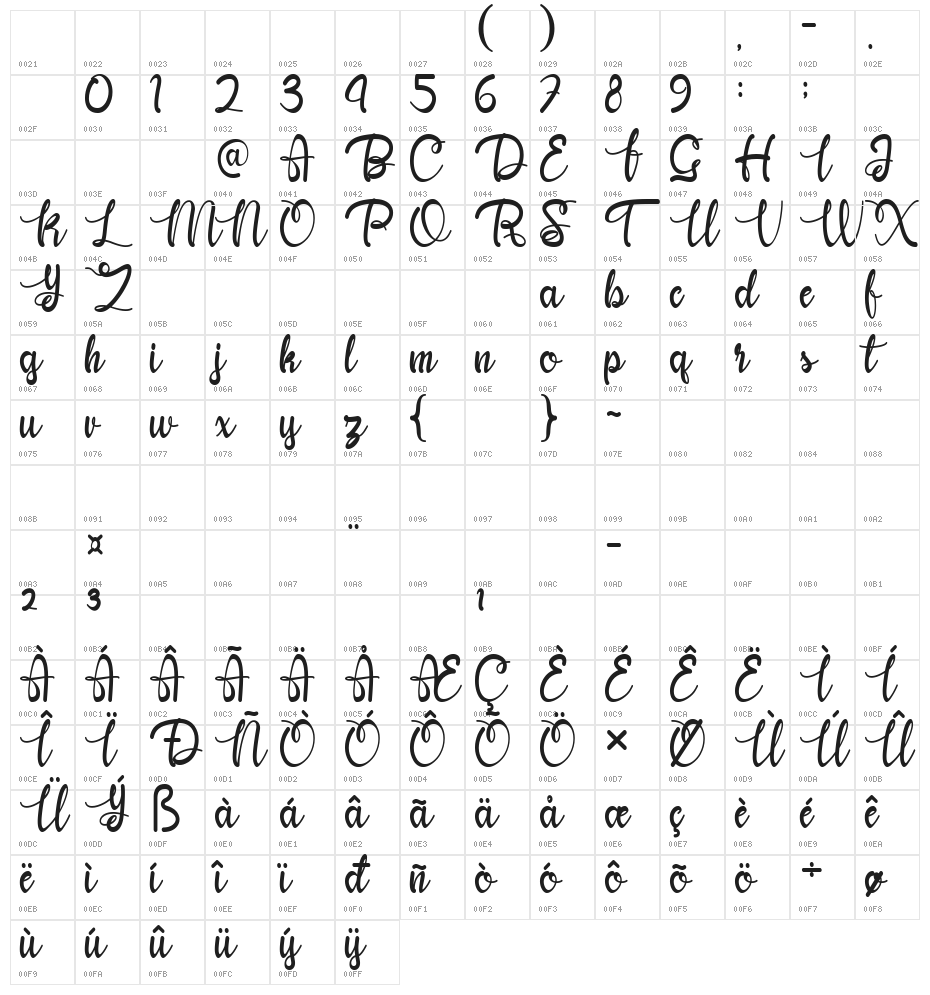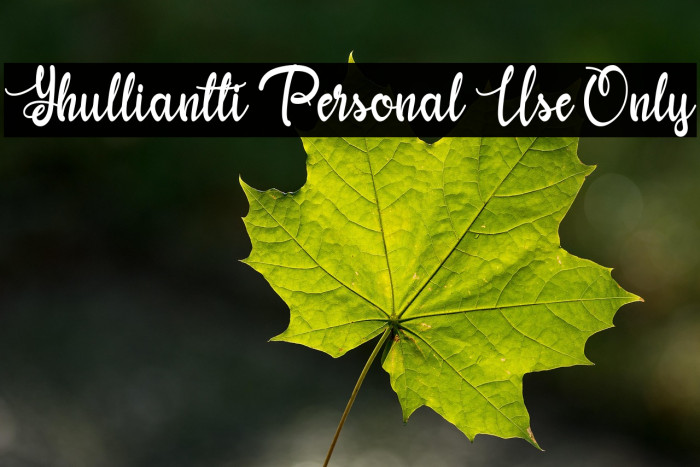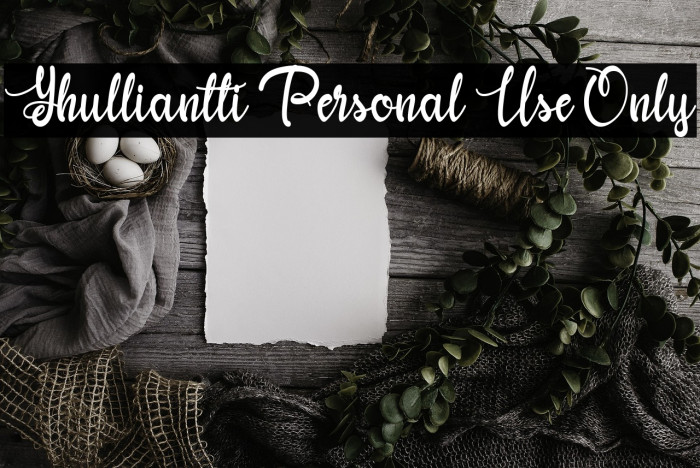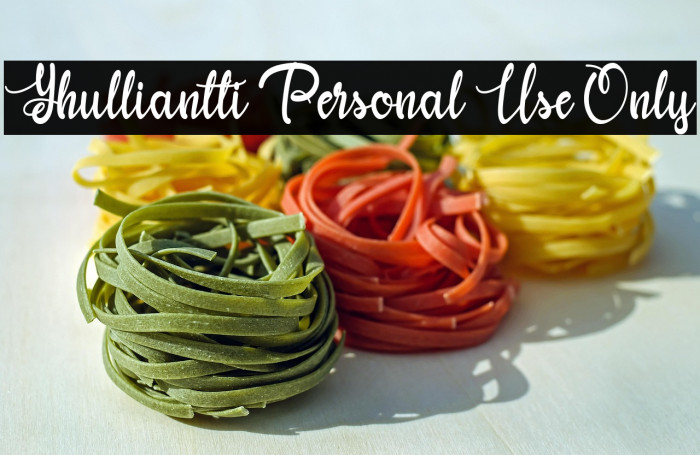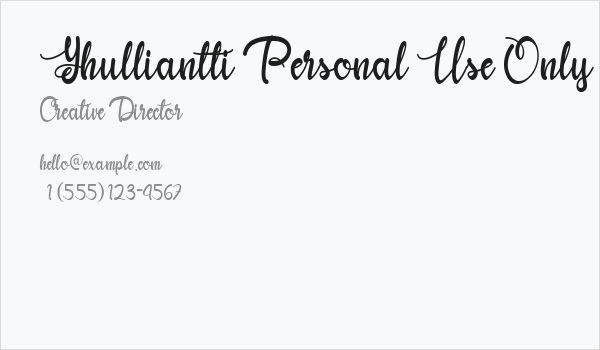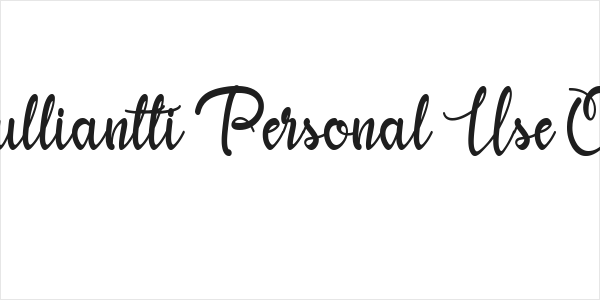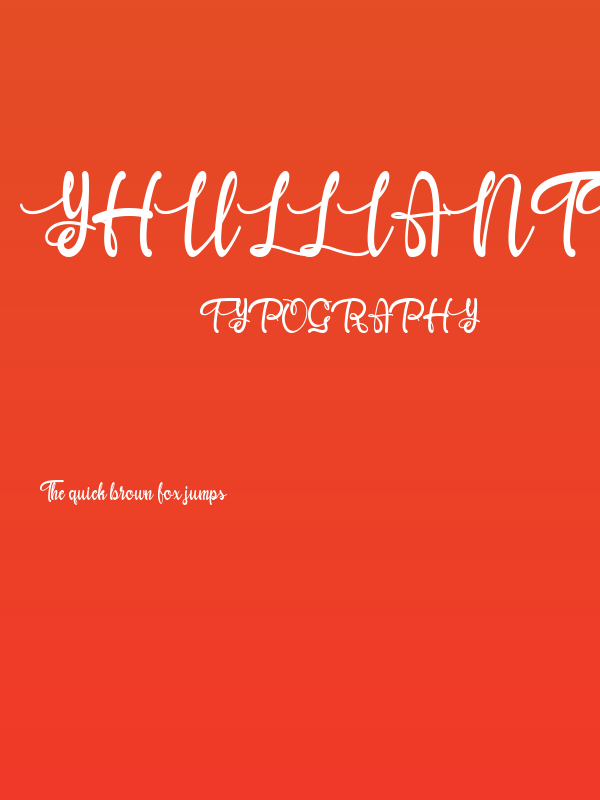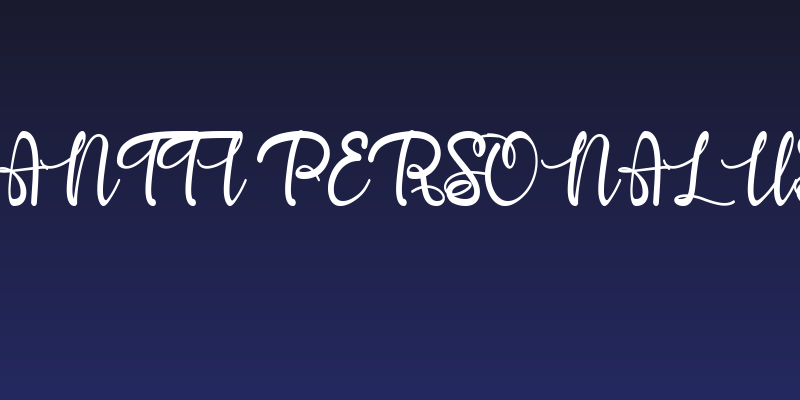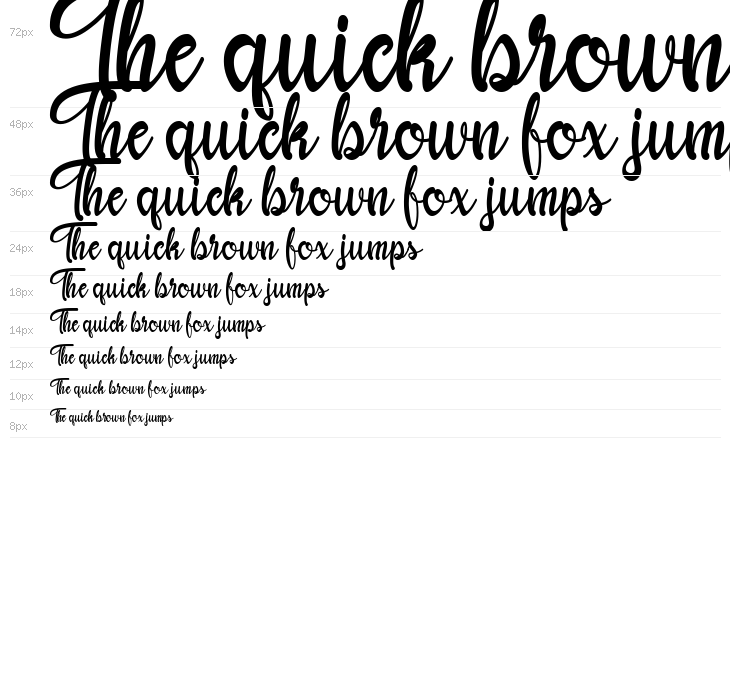
Yhulliantti Personal Use Only Font
Yhulliantti Personal Use Only Description
This font features a flowing, cursive style with elegant loops and swashes, giving it a handwritten appearance. The uppercase letters are characterized by their tall, graceful forms, while the lowercase letters maintain a consistent, smooth flow. The numbers are bold and slightly rounded, complementing the overall script style. Special characters are designed with the same fluidity, ensuring a cohesive look across all elements. This font exudes a sense of elegance and sophistication, making it suitable for projects that require a personal touch.